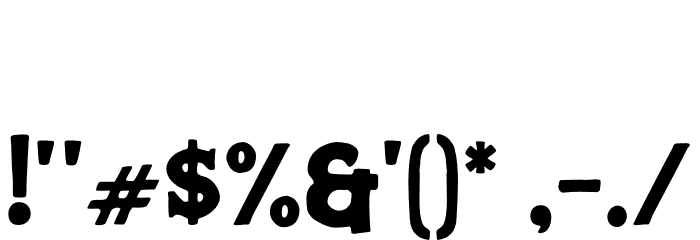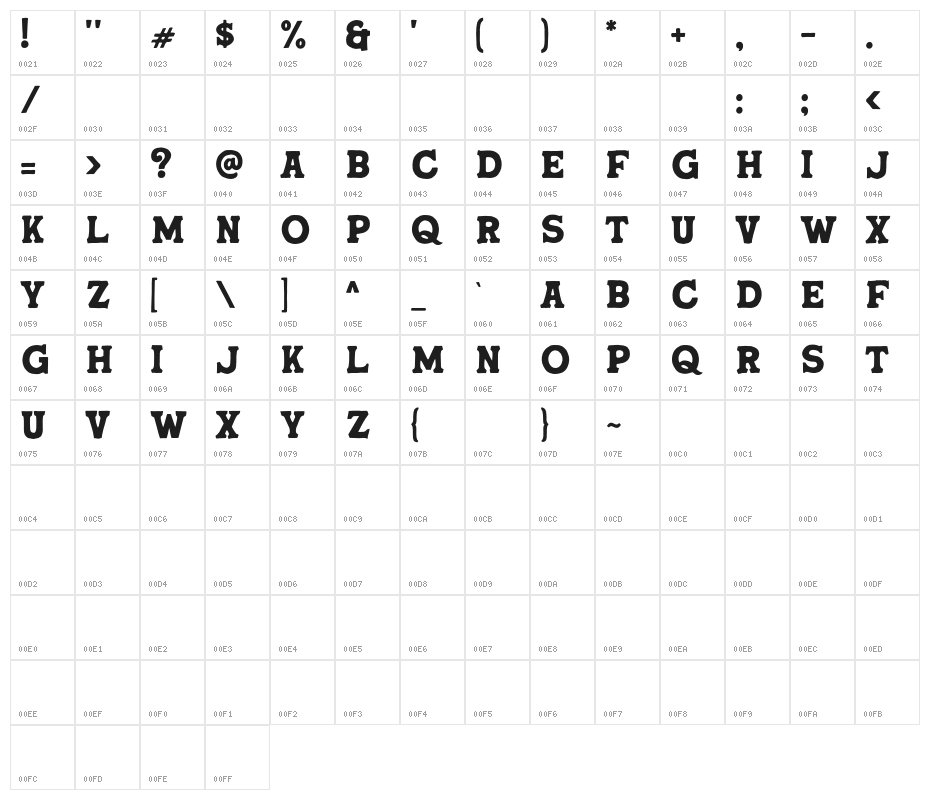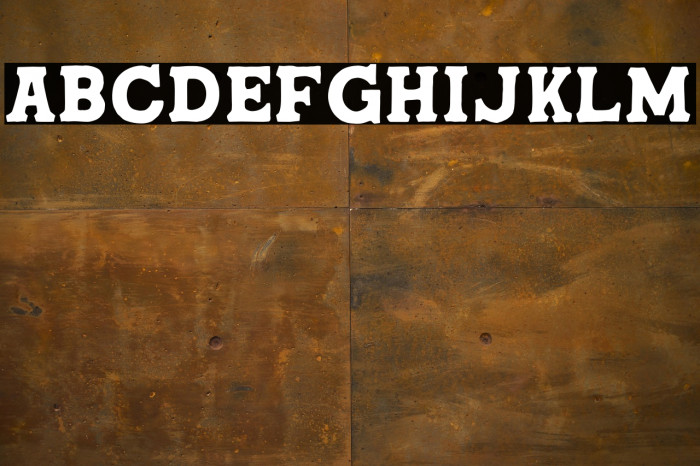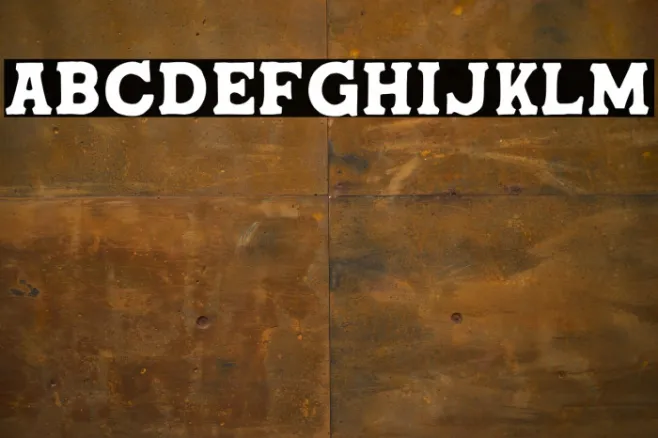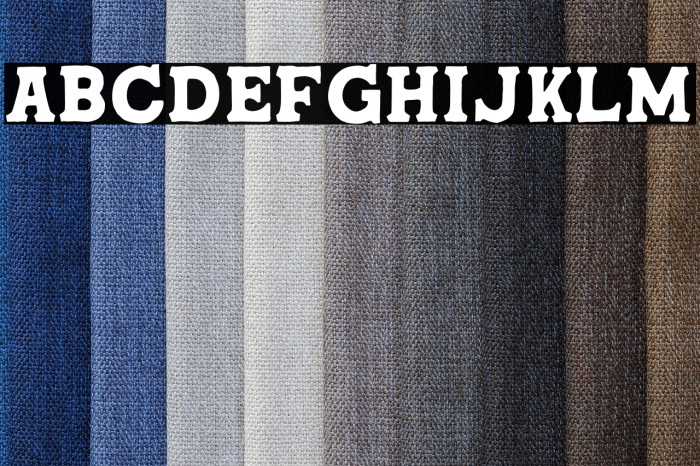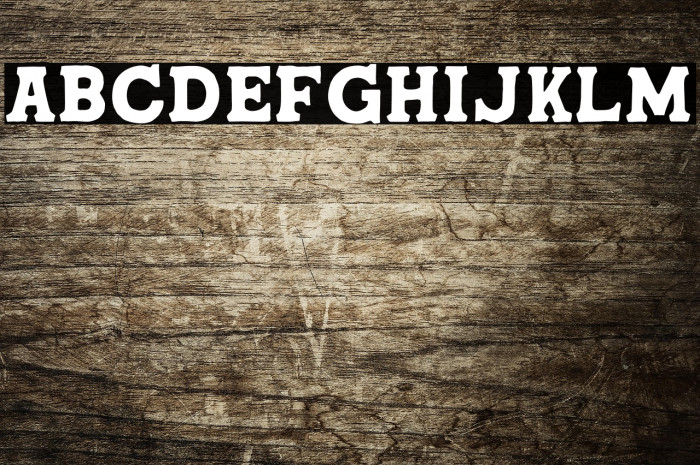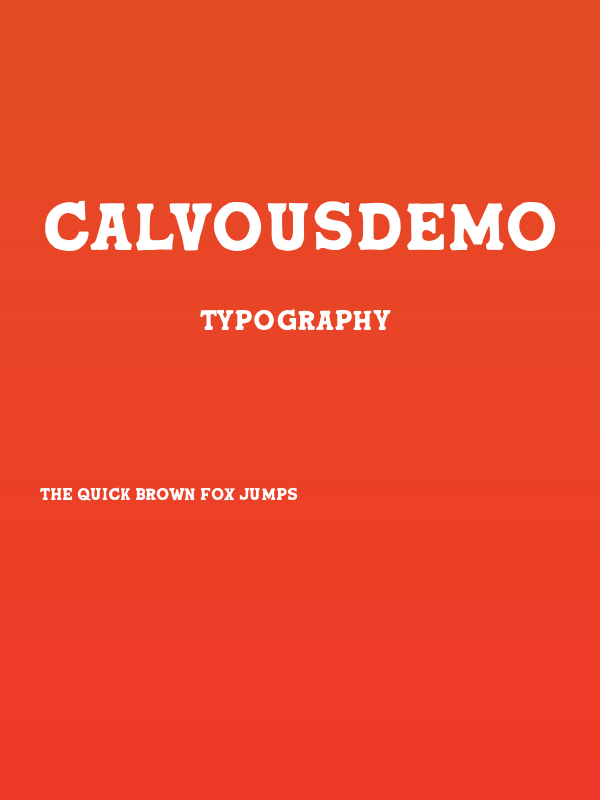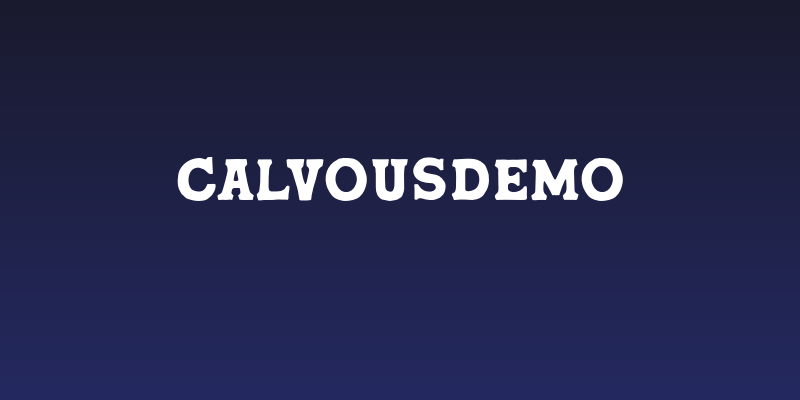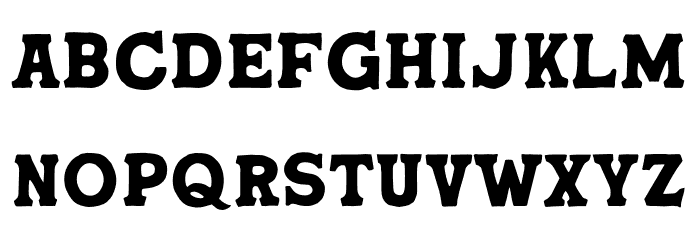
CalvousDEMO Font
CalvousDEMO Description
This font features a bold and robust design with thick, blocky serifs that give it a strong and commanding presence. The characters are uniformly wide, with a consistent stroke weight that enhances readability and impact. The uppercase letters are particularly striking, with a slightly condensed form that maintains clarity even at smaller sizes. The lowercase letters mirror this boldness, providing a cohesive look across all text. The numerals and special characters are equally bold, ensuring they stand out in any context. This font's overall style is reminiscent of vintage woodblock printing, with a modern twist that makes it suitable for contemporary designs.
| Proposed Projects | Ideal for branding, posters, headlines, and any project requiring a strong, vintage aesthetic. |